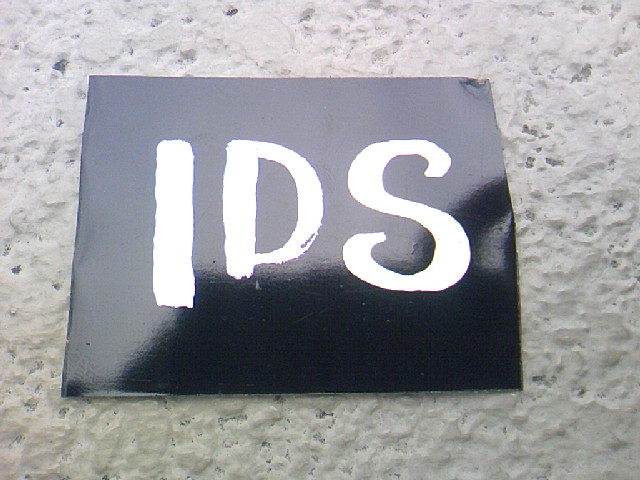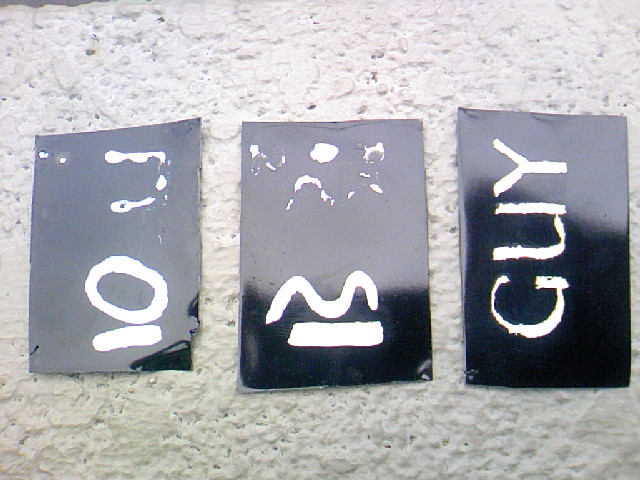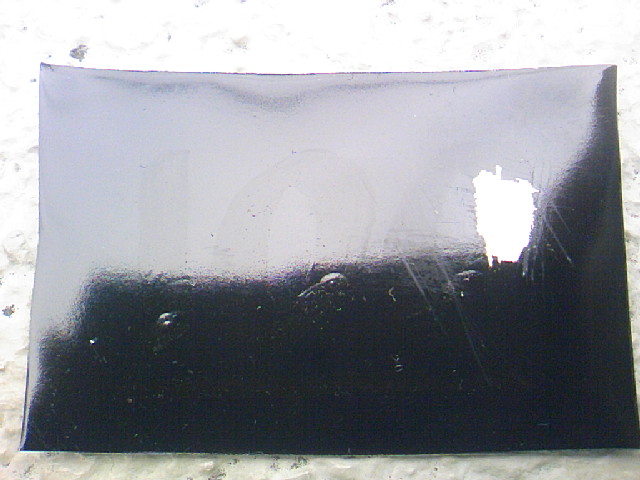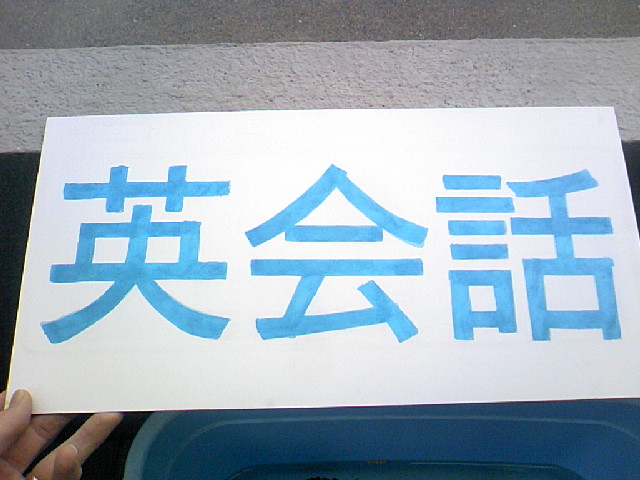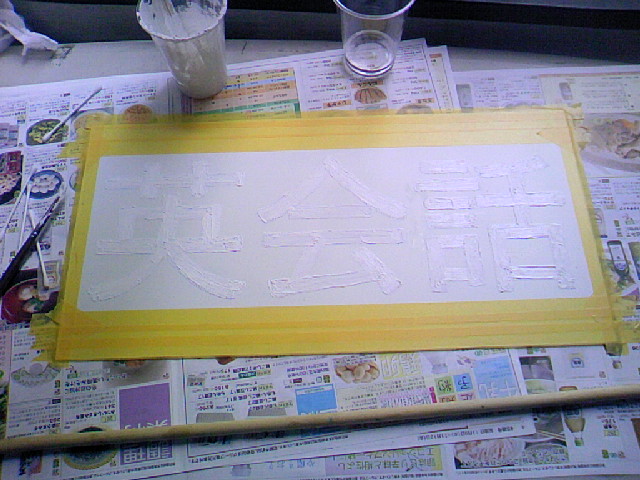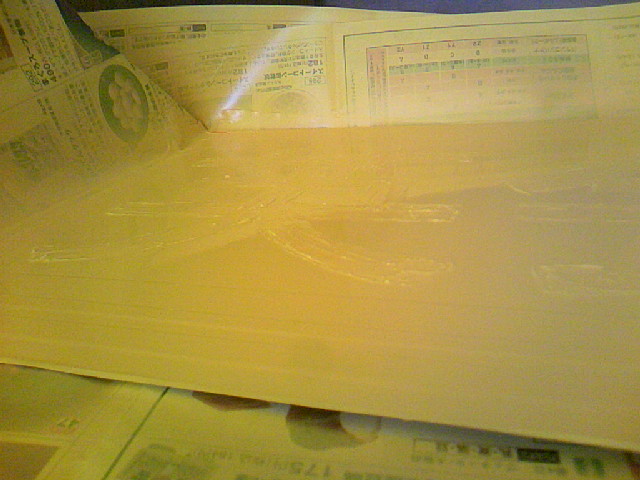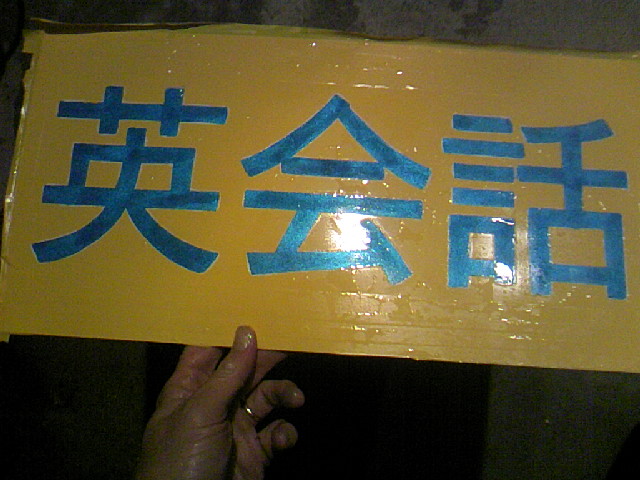
Lacquer method of sign painting
I found this patent which seems to be the same system described by E. C. Matthews. In an article on The Sign Painting Museum site Matthews mentions visiting Vaughn's shop so there IS some connection.
TITLED: METHOD OF MAKING SIGNS, Filed June 21, 1926
I found and ordered a copy of the book but it has not come yet. Can't wait so been experimenting with the method but...
The masking paste described on the patent would not work for me. Maybe there is a secret ingredient...
I started trying other liquids with better results but the edge quality is not as good as I would like. I also had a problem where the lacquer got through in the center of a line an a piece not shown here.
Three plates picture: GUY is the exact formula as the patent and the other barely visible tests are variations of it. They all beaded away from the edges as you can see. The ones that are better are based on PVA with glycerine and lithopone. The edges are nothin to holler about.
Chalk picture: I tried a chalk marker. No go...
Close up picture: straight line is white glue, glycerine and lithopone -- not bad. "D" is the same with water added -- worse. "S" is the same with PVA added -- best so far.
:?: Consistency is hard to letter with tho and still room for better edge quality. Maybe this cannot be helped?
:?: Anybody using this method?
Not sure why you would want to use this method.
Would not a vinyl mask do the same?
curiosity, fun, knowledge expansion...
I don't have a vinyl cutter machiney thing. Did you mean a liquid vinyl mask?
I like experiments.
Go David go!
With experiments of old recipies, we could get new insights and better solutions for what we are doing now.
When I finish my two glass pieces one of these weeks, I will start testing and experiment on an easier alternative of the asphaltum glue chipping method.
Still in the learning phase ;-)
This was an exercise in a basically failed attempt to have a very fast drying painted sign. While some, including Matthews had some success, the quality could not have been good, given the examples I have seen over the years. During the time period, lacquer had the highest gloss as well as fast dry, but dry time itself was too fast for conventional lettering with a brush. With all of the other options available to us now, it seems like a poor substitute. It is interesting to delve into some of the historic practices though and see what the inventors were doing to improve production.
At some point in the thread, we were talking about Mud and some of the issues related to it.
The reason it went away is it was a lousy process/product and was replaced with various materials that were much better.
I'd suggest you find SprayLat or GripFlex (sometimes calls SignMask). It is water based and can be brushed, sprayed, or rolled. When dry, you can draw on it with a magic marker and cut it easily with a X-Acto knife.
Maybe you should try this.
I have an academic interest in this method mostly, but...
To tell the truth I do have a piece with aluminum bronze lettering I need to put a ground on... Very similar to Joe Ceislowski's situation... the bass acwards way of gilding...
The last test I did I was able to spray the lacquer and mask off another aluminum letter with little damage. I am optimistic.
This is really fun aside from anything else! The letters magically appear when you spray them with a garden hose! I love it!
Eric, thanks for the cheer! I'll post more tests soon. Malted milk powder, hmmm....
I tried the lacquer method masking on the aluminum sign I mentioned.
The sign is plastic primed with spray can plastic primer.
I sprayed the mask off with the garden hose with nozzle set to stream. Three coats is hard to remove so I got the nozzle up close. I tried a hog bristle brush at first but found it damaged the aluminum... A pressure washer would work best but the hose ended up doing okay.
Success! Or close nuf.
Next I will do the same to the other side and then outline the letters and ground. Dark blue or black I am thinking.
Hope this was useful to someone :D